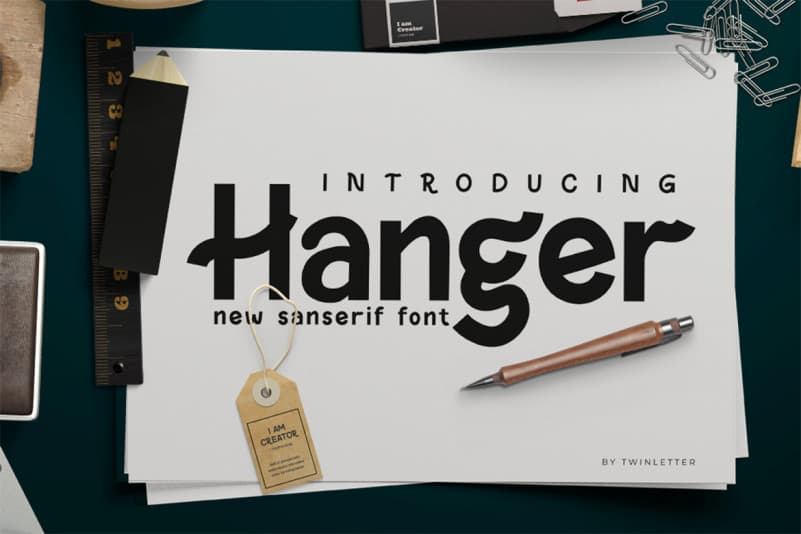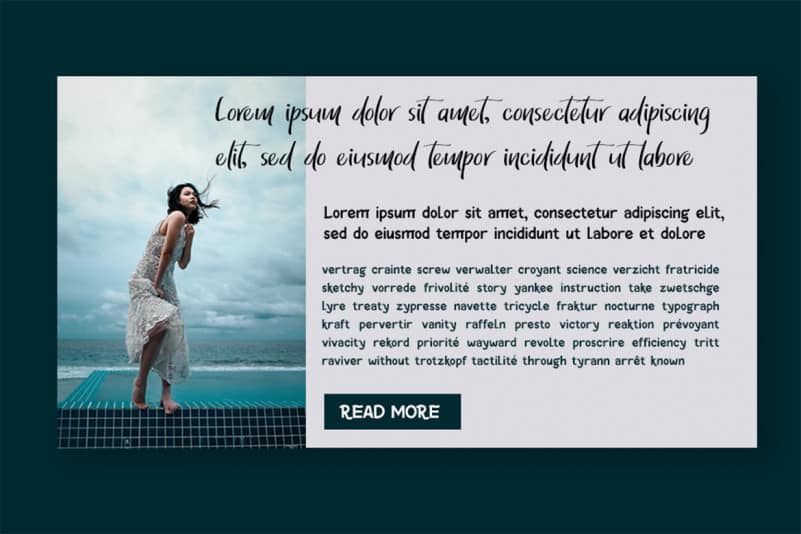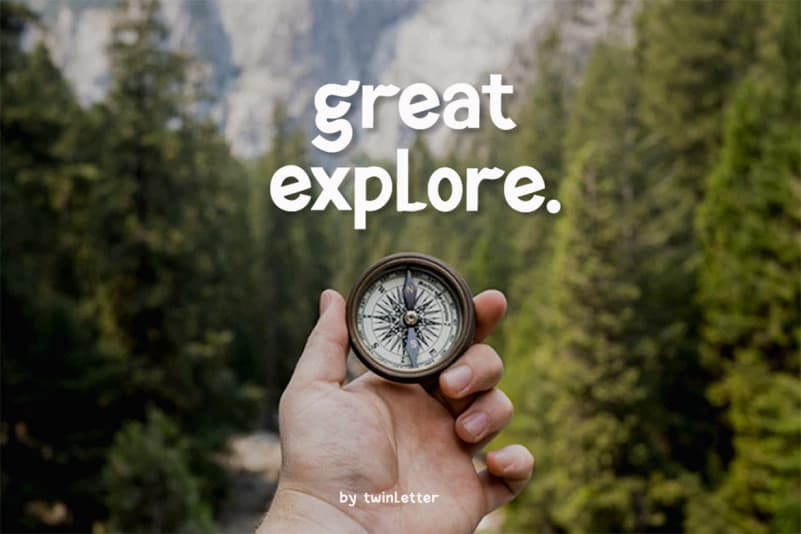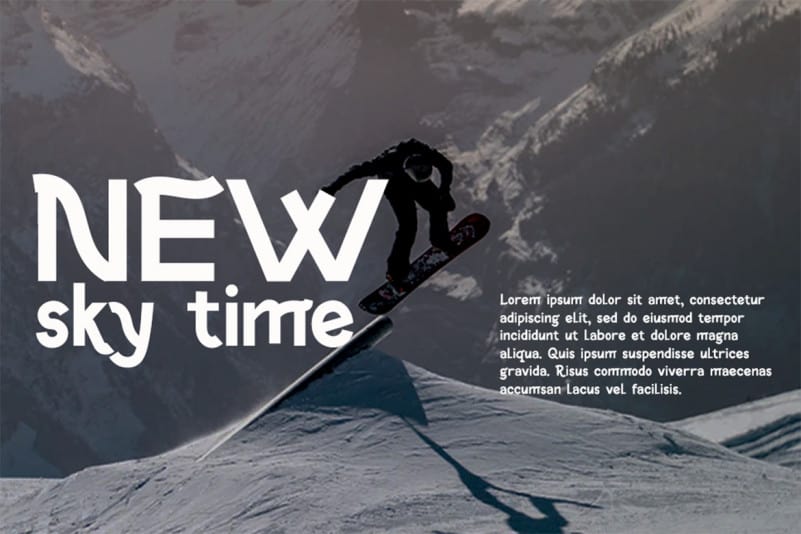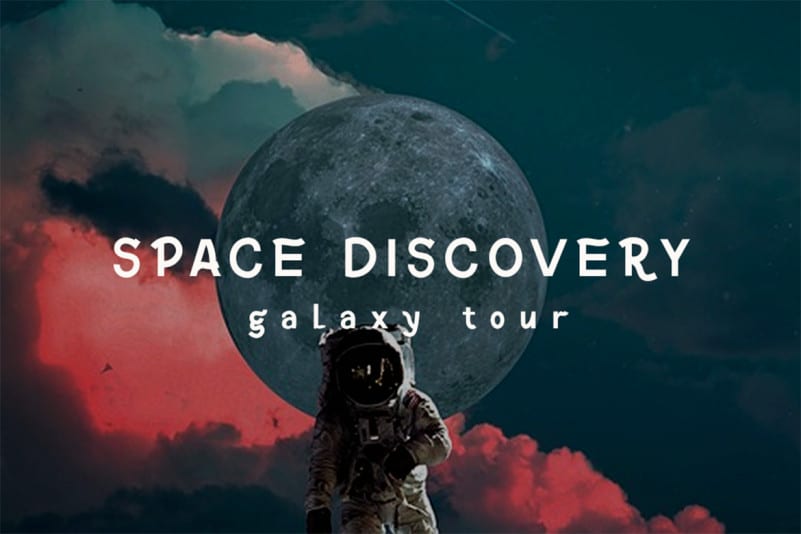
Hanger Sans Font
Hanger Sans Font is a Hanger sans serif font that is connected with clear style and dramatic movements. This font comes with uppercase letters, lowercase letters, numbers, punctuation marks, and so many variations on each character including alternating opentypes, common binders and additions to make you customize your design. Perfect to use for Logotype, Letterhead, Posters, Clothing Designs, Labels and all designs that require handwriting